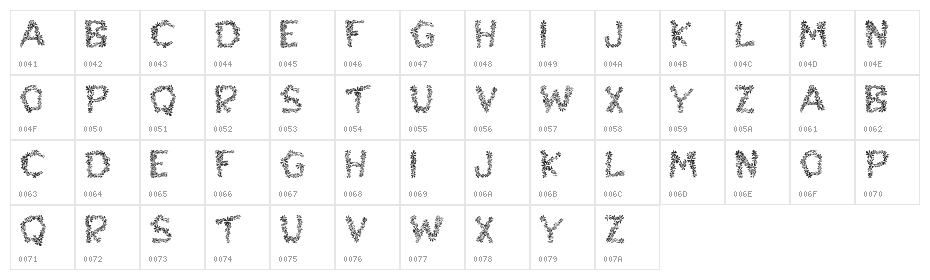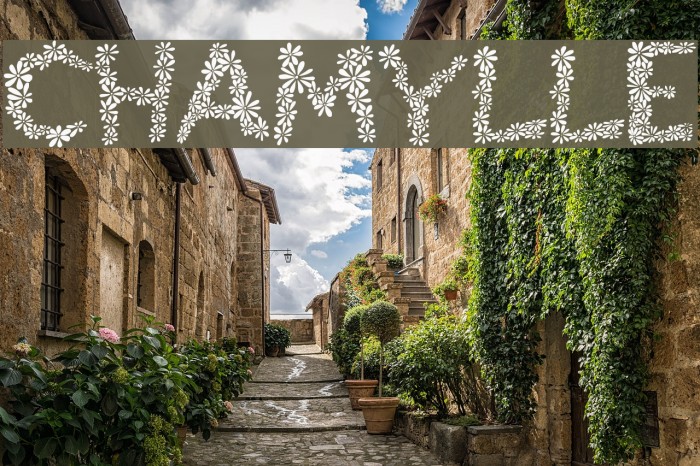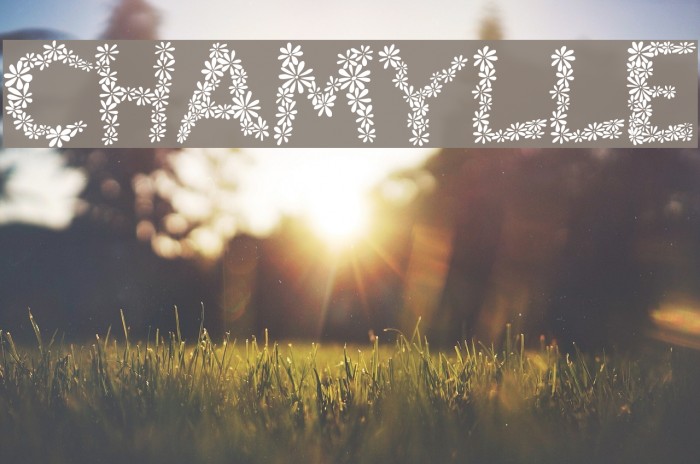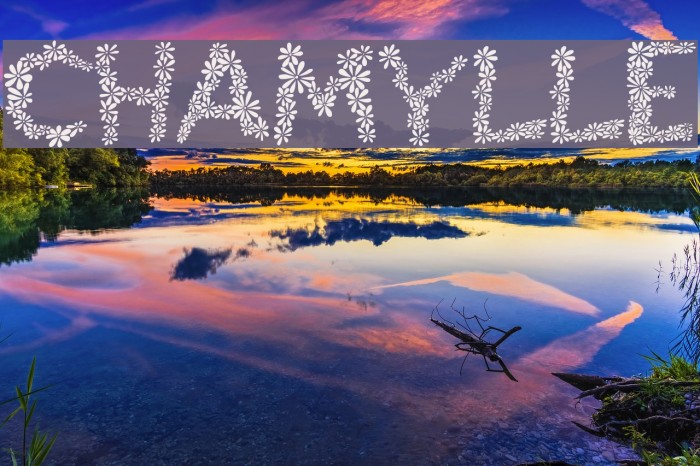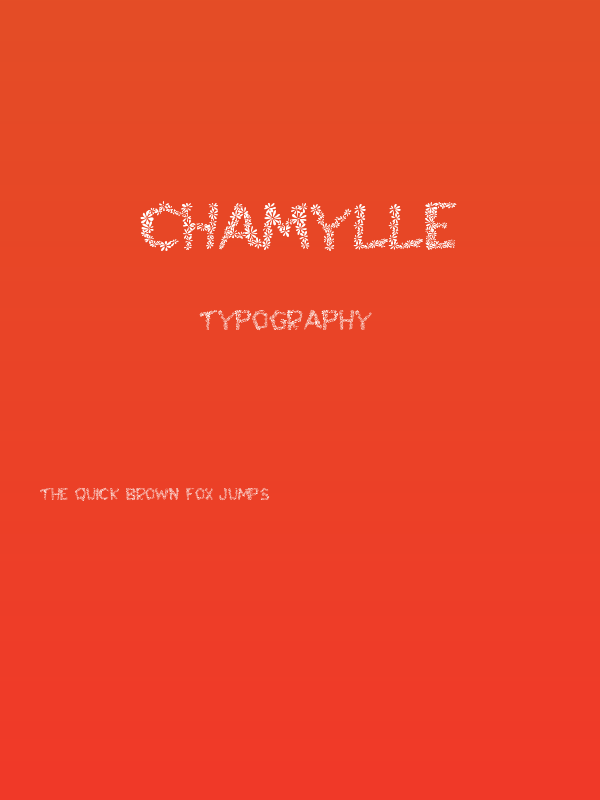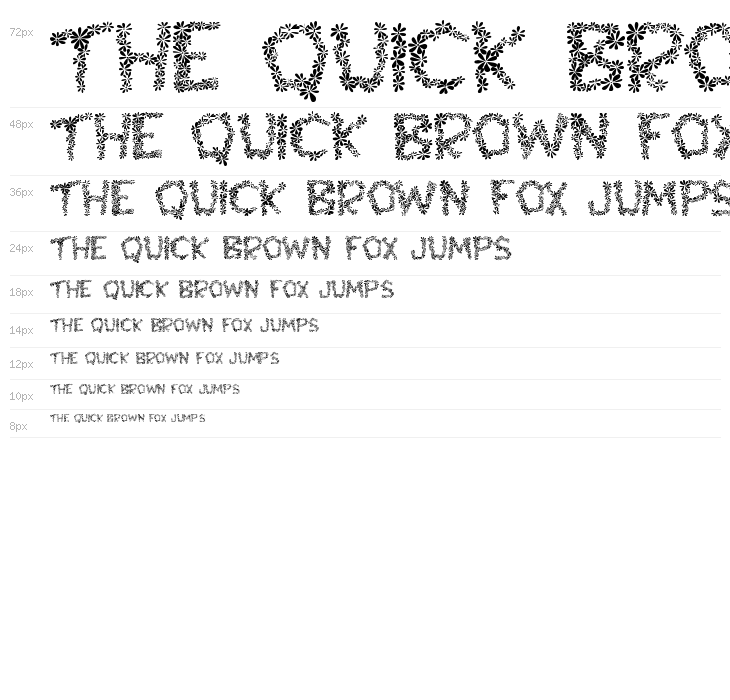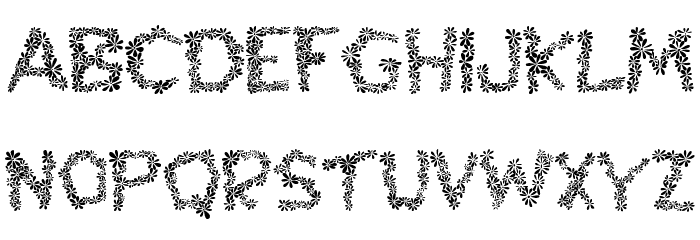
Chamylle Font
Chamylle Description
This font features an intricate design where each character is composed of small floral patterns, creating a visually striking and decorative appearance. The letters are uppercase and maintain a consistent size and shape, with each character adorned with detailed leaf and petal motifs. The overall look is both organic and artistic, making it ideal for projects that require a touch of nature or elegance. The floral elements are densely packed, giving the font a rich texture and a unique aesthetic that stands out in any design.
| Proposed Projects | Ideal for wedding invitations, greeting cards, botanical-themed branding, and decorative posters. |